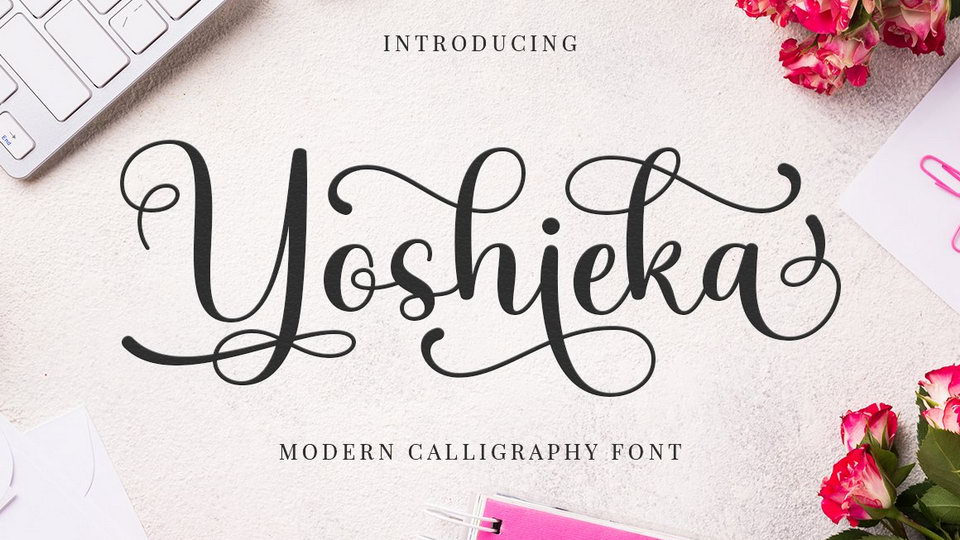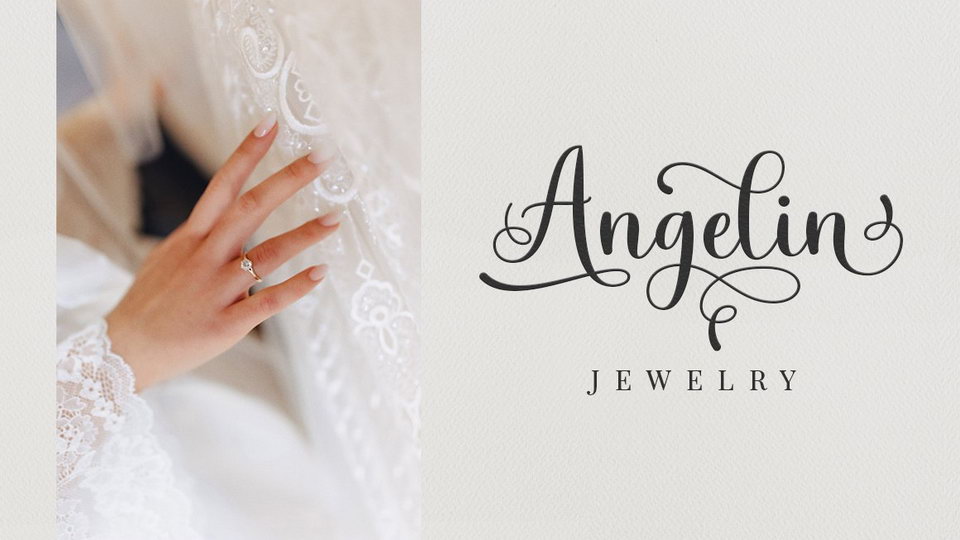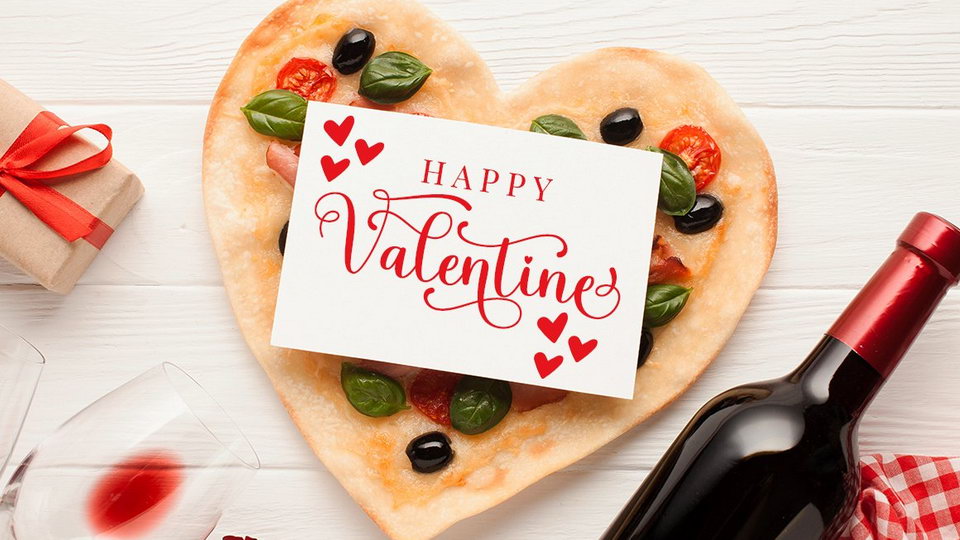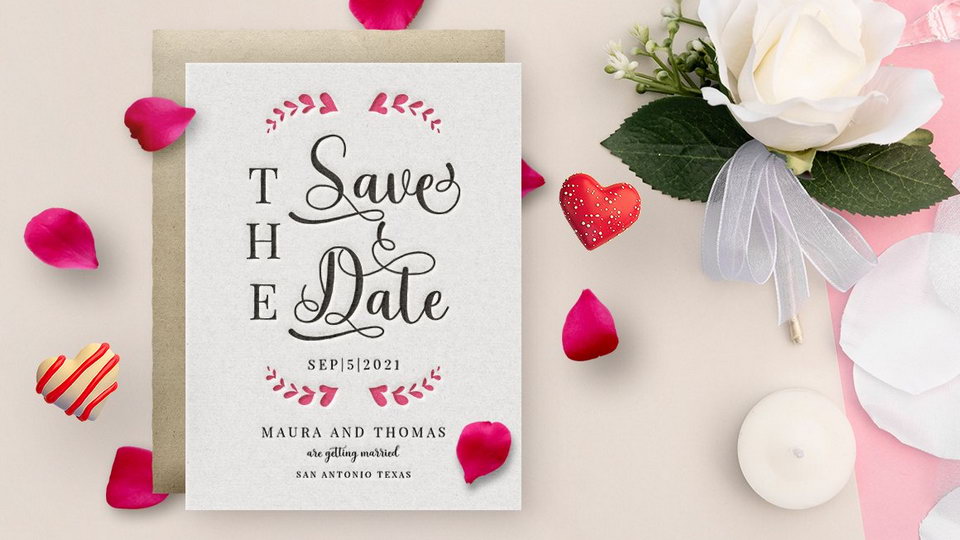
Yoshieka Script is a modern calligraphy font. Here you will get a beautiful script font. This font is available some modern swirl that can make your work look elegant, sweet and perfect.
Yoshieka Script can be used for various purposes.such as headings, signature, logos, wedding invitation, t-shirt, letterhead, signage, lable, news, posters, badges etc.